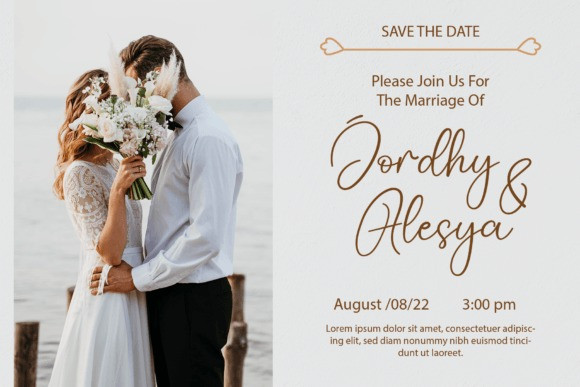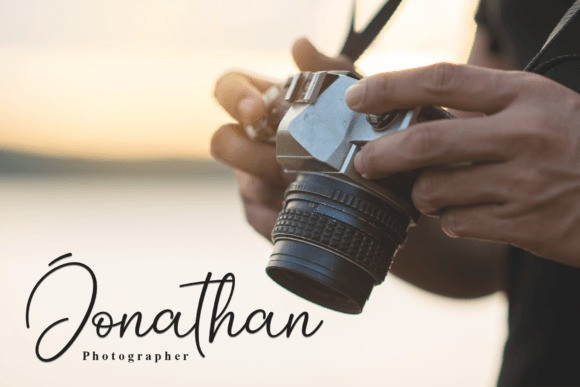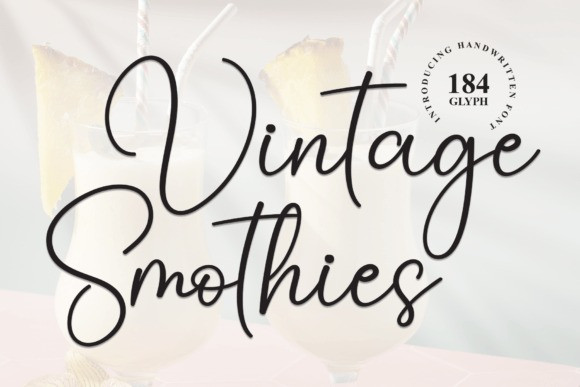
Vintage Smothies Font
Vintage Smothies Font is a flowing handwritten font that marries grace with expressiveness. Each meticulously crafted character exudes an artful elegance, capturing the essence of traditional calligraphy. Ideal for projects seeking a timeless and sophisticated touch, Vintage Smothies adds a refined, handwritten flourish to your creative endeavors.